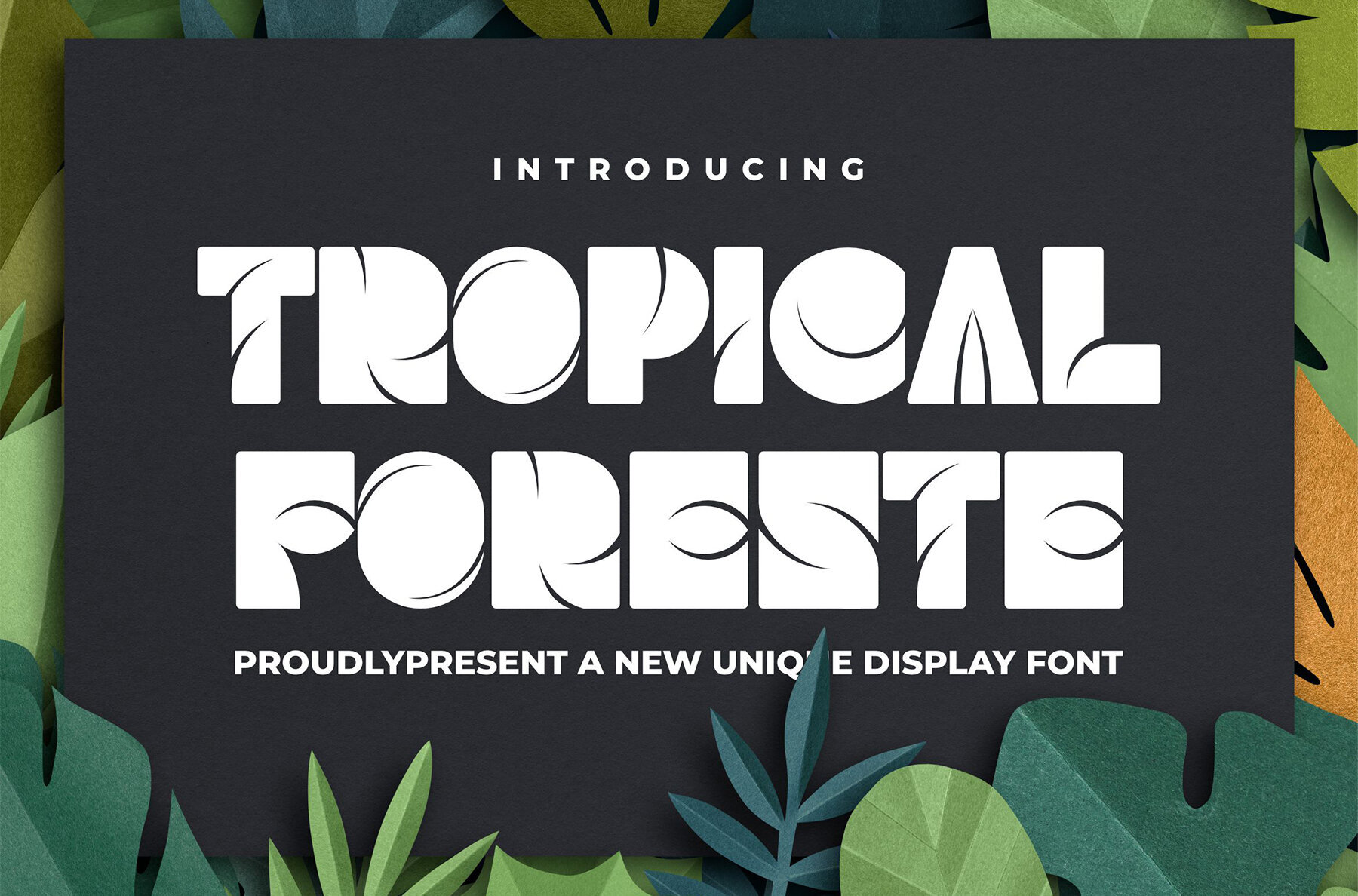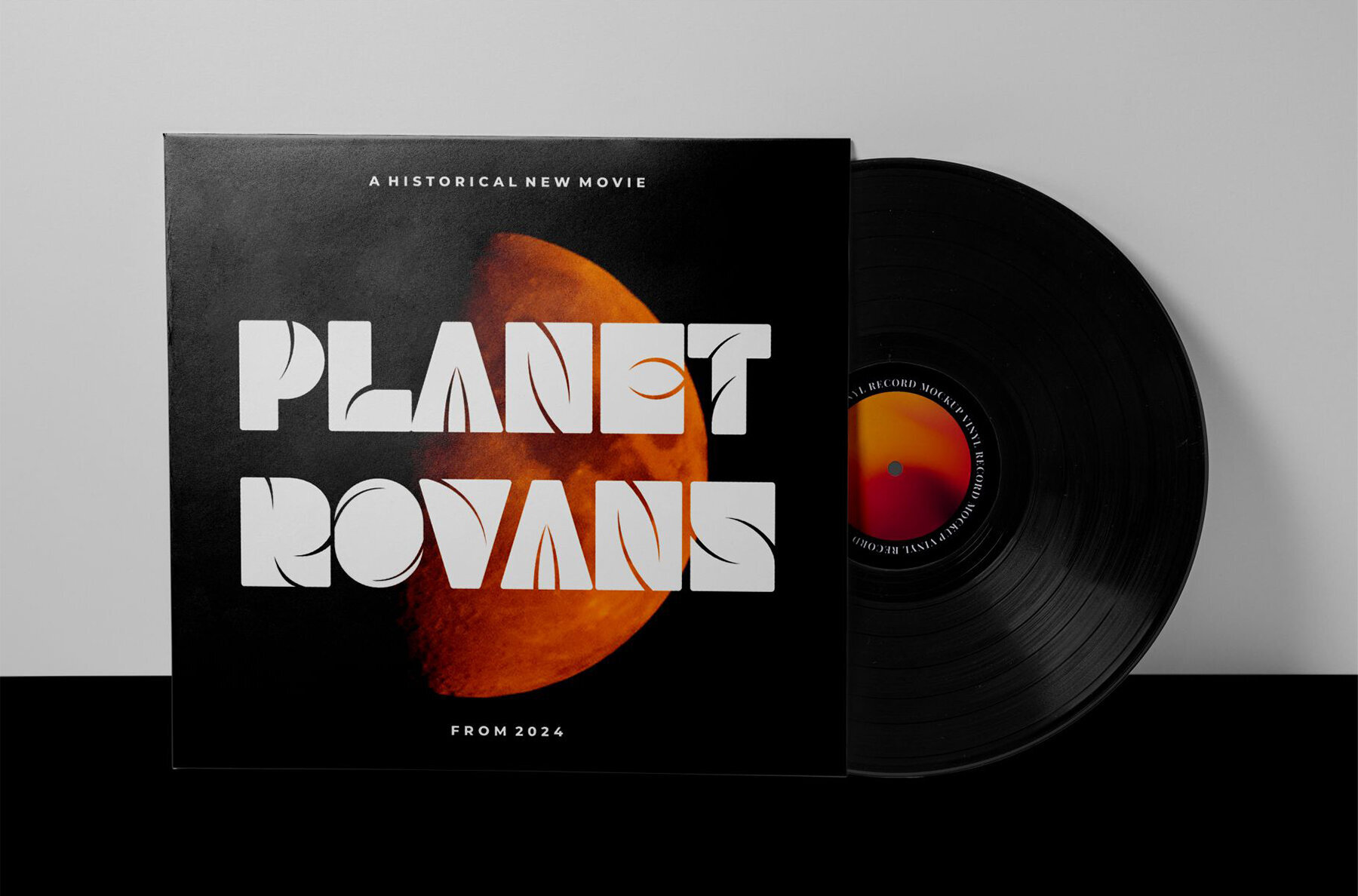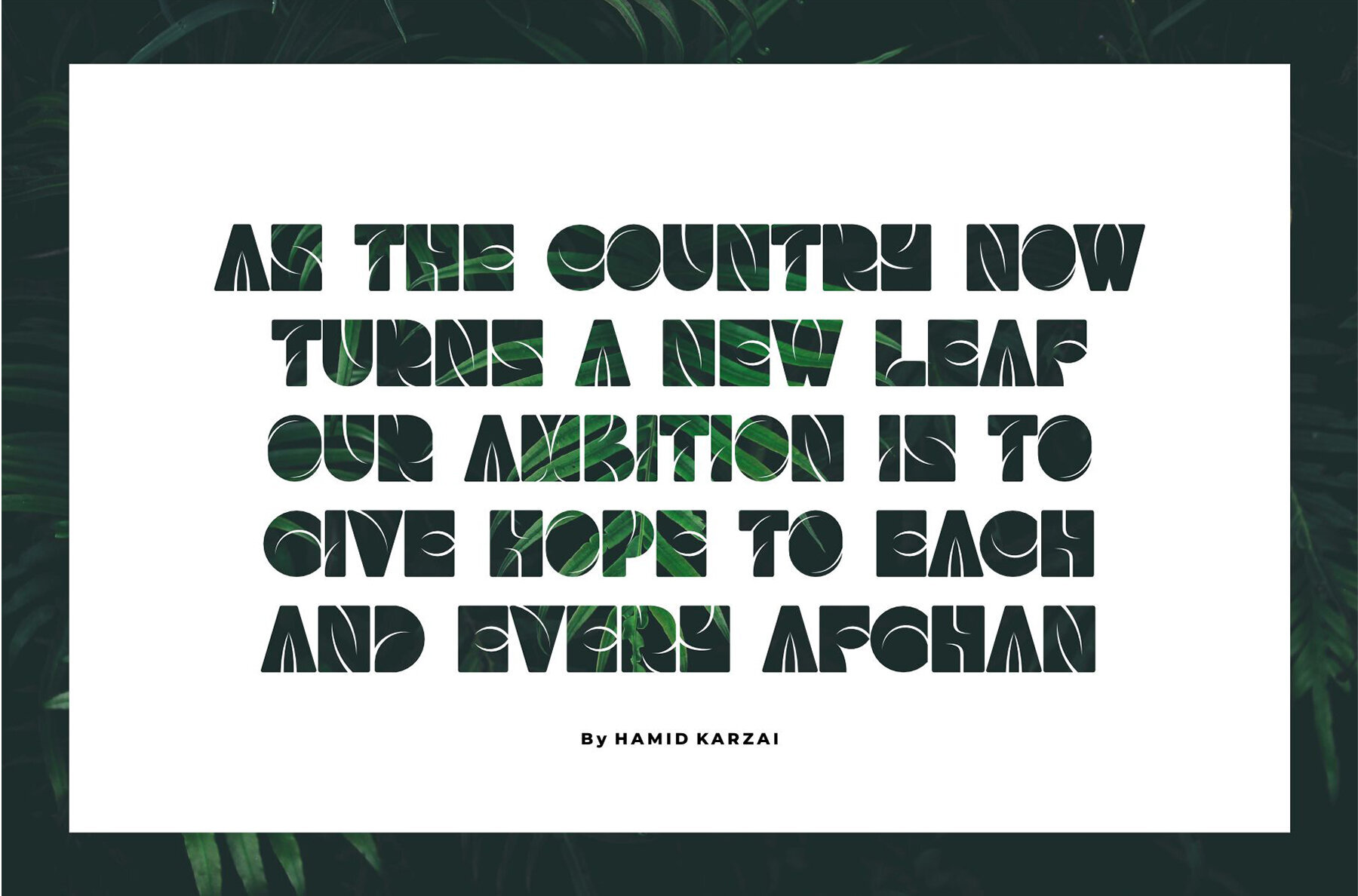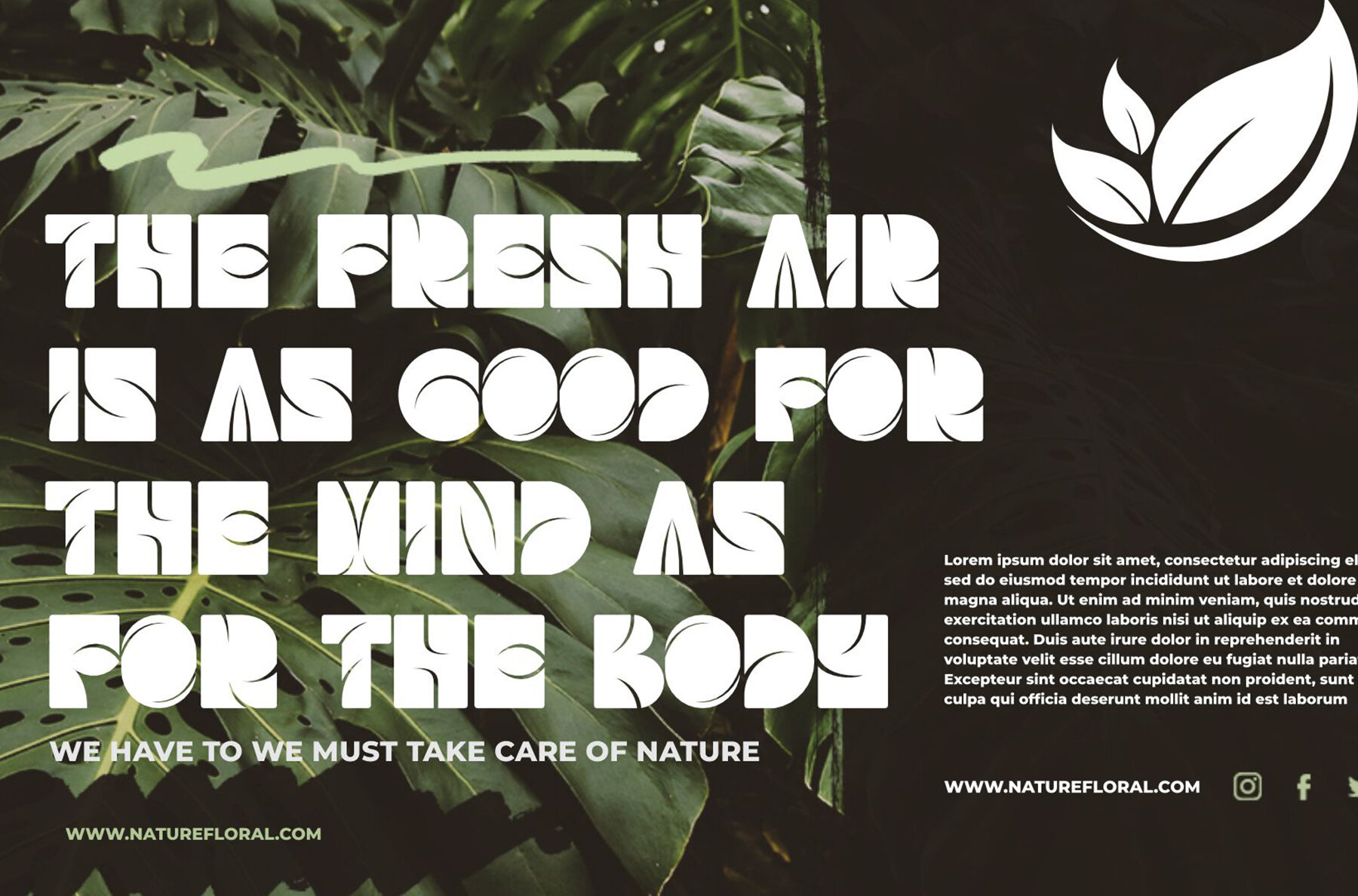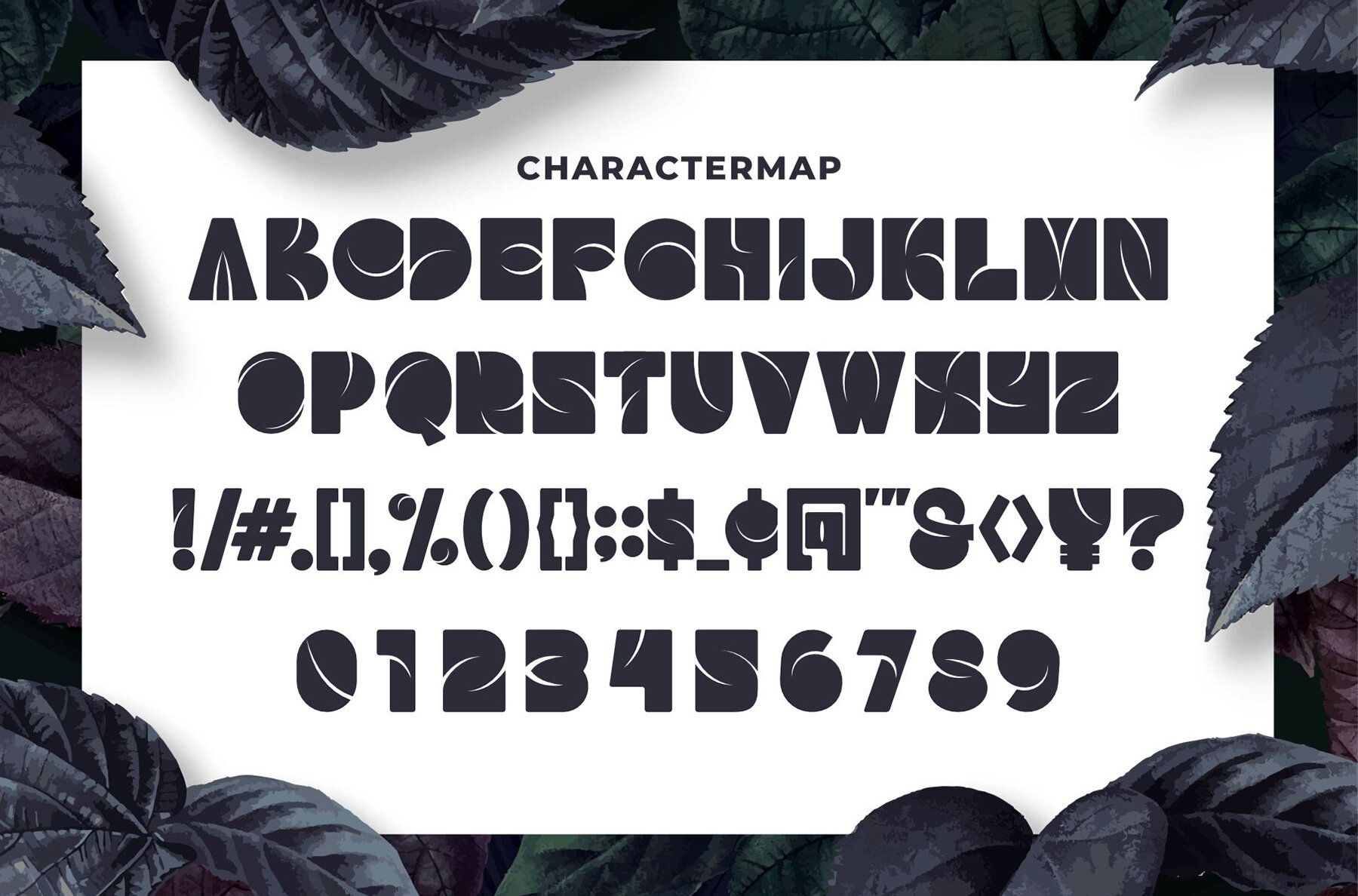
Tropical Foreste Font
Tropical Foreste
Tropical Foreste is a distinctive display font crafted for a range of design projects. Its unique style seamlessly integrates with invitation card designs, company logos, film titles, business cards, book titles, and brand names. The font's stylish alternations and bindings add a touch of flair, making it an ideal choice for those seeking to infuse their designs with character.
This font thrives in creative environments, enhancing visual appeal through its striking appearance. Whether you're designing for print or digital, Tropical Foreste brings a fresh and bold presence, supporting varied creative endeavors with its versatile application.